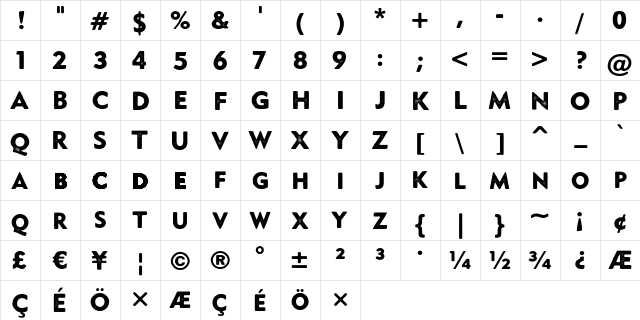
Monesque Regular
| Foundry | S. John Ross |
| Designer | S. John Ross |
Design Context for Monesque Typeface
Monesque is a composed and adaptable typeface that performs quietly and consistently across a wide range of design contexts.